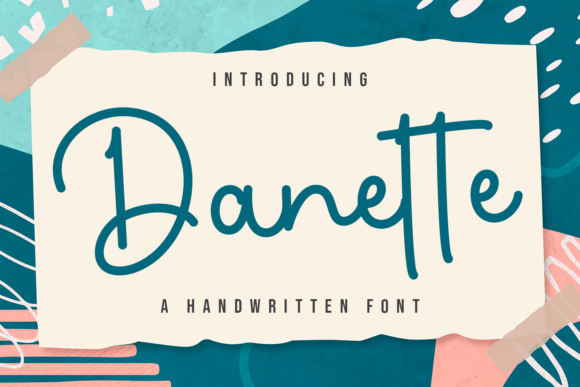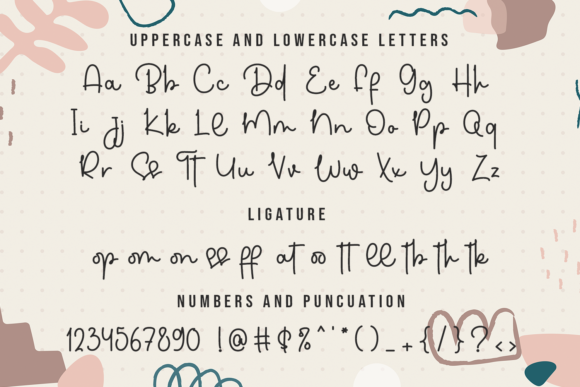
About Danette Font
Danette is a beautiful and cheerful monoline script font that has the power to elevate your imagination and each of your creative designs to their highest level. Add it to your projects, and they will be outstanding!